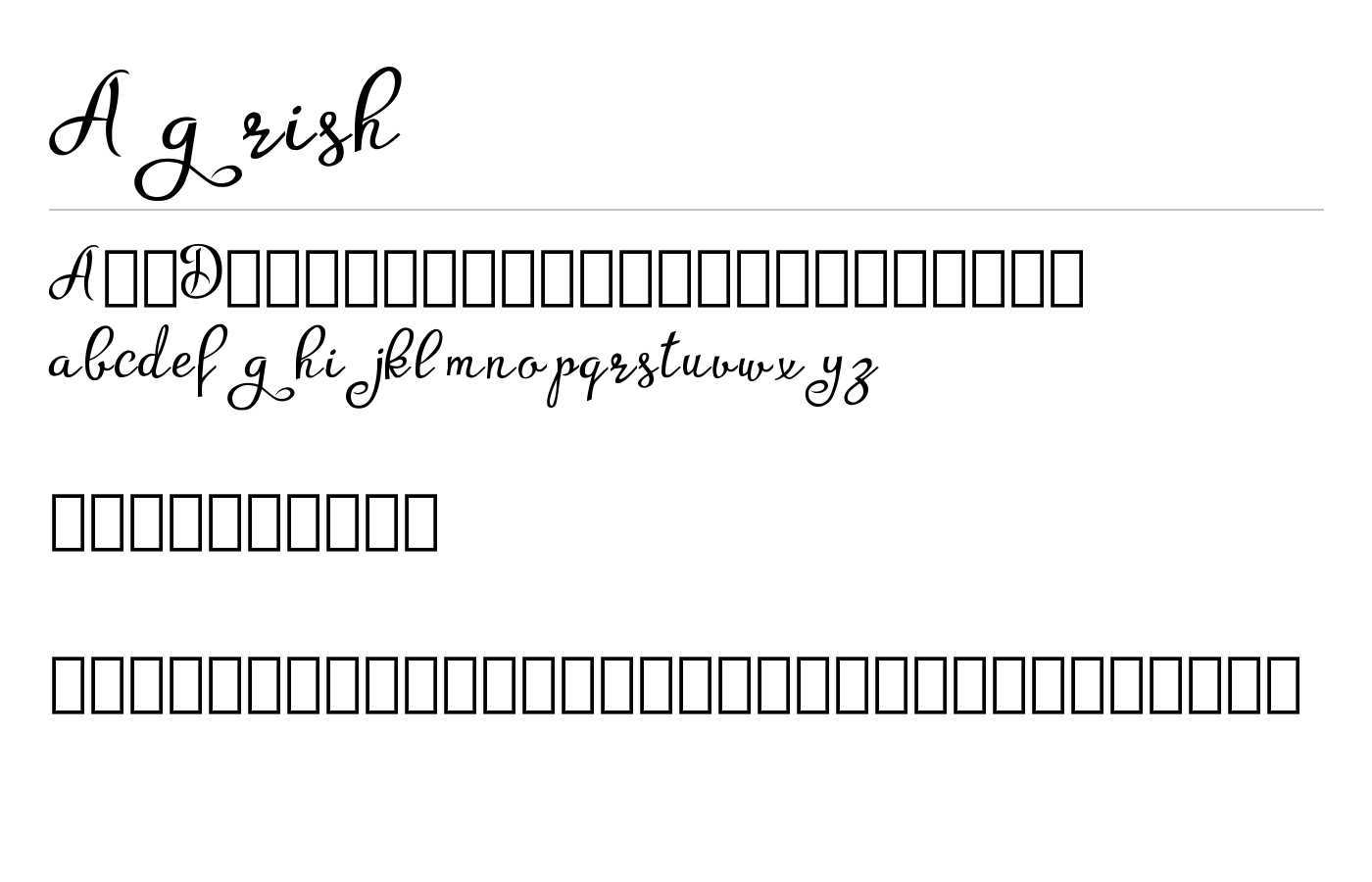
Agrish is an elegant script font featuring delicate, flowing letterforms with smooth curves and graceful swashes that evoke a classic handwritten style. Its light weight and airy spacing make it perfect for adding a touch of sophistication and charm to invitations, branding, and elegant editorial designs. This font works best in decorative contexts where a refined, personal feel is desired.
Agrish Font